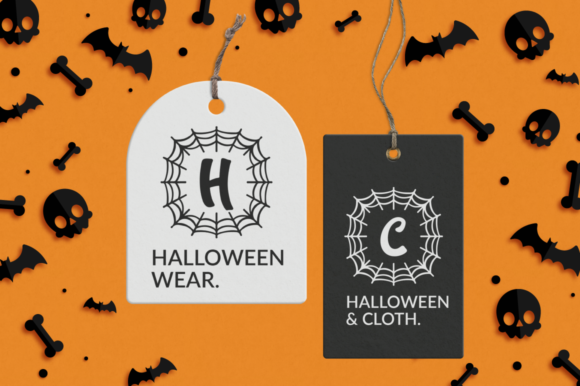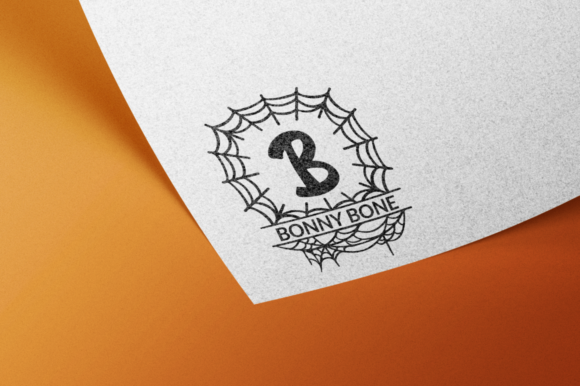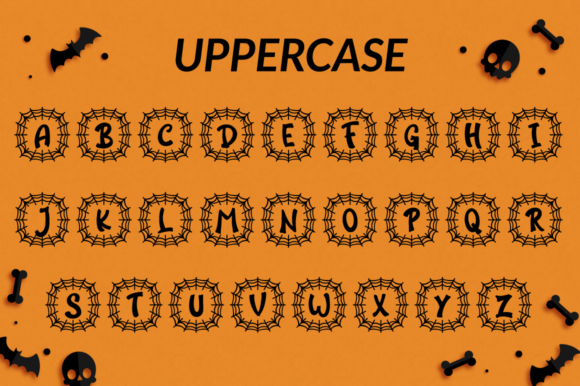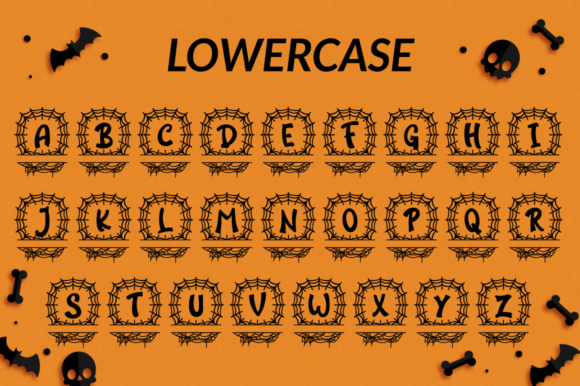
Introduction to Laba Monogram Font
As the clock strikes midnight on a dark autumn night, and the wind whispers eerie tales through the trees, the spark of creativity ignites within us. It’s the perfect moment to bring our spooky ideas to life, and one design resource stands out as a shining beacon – the Laba Monogram Font.
Imagine crafting a hauntingly beautiful invitation for a haunted house party or a witchy gathering, where the high-quality, decorative letters of the Laba Monogram Font take center stage. With its free download and transparent background, this versatile font is the perfect design resource for any creative project, from spooky decorations to eerie illustrations.
Key Features of Laba Monogram Font
- High-quality design suitable for creative projects, including invitations, logos, and branding materials.
- Unique monogram style with a modern twist, ideal for those seeking a distinctive and elegant look.
- Comes with a transparent background, allowing for easy integration with various design elements and backgrounds.
- High-resolution designs, suitable for printing and digital use, with a resolution of at least 300 DPI.
- Perfect for designers and artists looking for a high-quality, unique design element to elevate their creative project.
Honest Review: Laba Monogram Font
I recently stumbled upon the Laba Monogram Font, and I must say it’s a great addition to any designer’s toolkit. This high-quality font is perfect for creating a unique and creative project. One of its standout features is that it’s available as a free download, making it an excellent design resource for those on a budget.
One of the things that works well for this font is its versatility. It comes in a variety of styles and can be easily customized to fit any design project. Additionally, the transparent background allows for seamless integration with any image or background, giving designers more creative control.
- Customizable styles
Introduction to Laba Monogram Font
The Laba Monogram Font is a high-quality, free download design resource perfect for creative projects that require a touch of elegance and sophistication. With its unique and stylish design, this font is ideal for creating custom logos, invitations, and other visual elements.
Tips for Getting the Most Out of Laba Monogram Font
To get the most out of the Laba Monogram Font, experiment with different font sizes, colors, and arrangements. Use the font in combination with other design elements, such as images and graphics, to create a unique and eye-catching design. Don’t be afraid to try new things and push the boundaries of creativity.
Common Use Cases for Laba Monogram Font
The Laba Monogram Font is ideal for a variety of creative projects, including:
- Custom logos and branding
- Invitations and event graphics
- Business cards and stationery
- Web design and